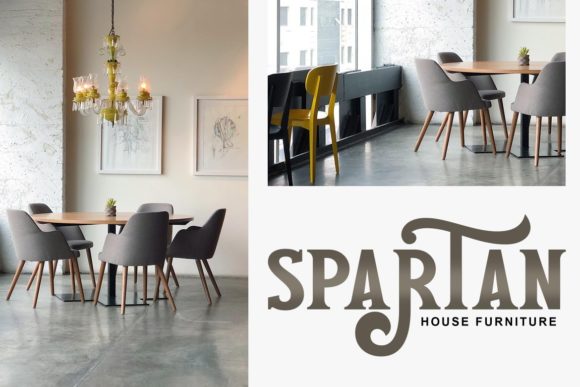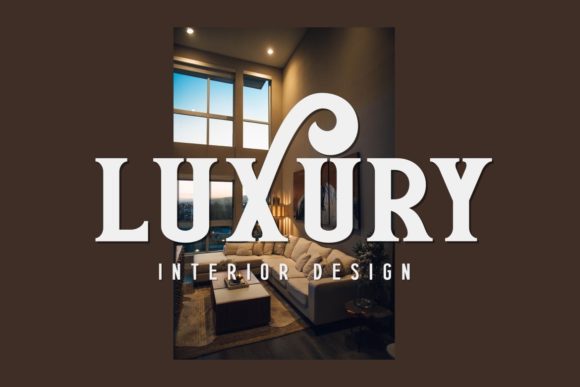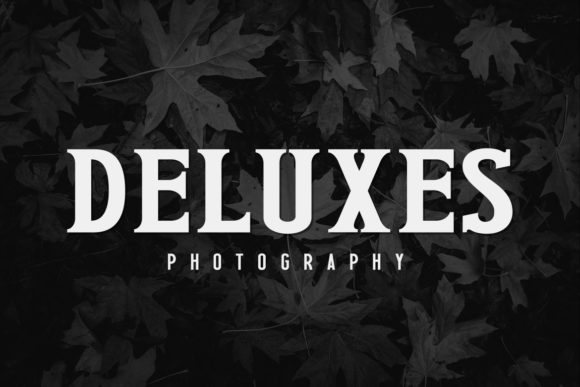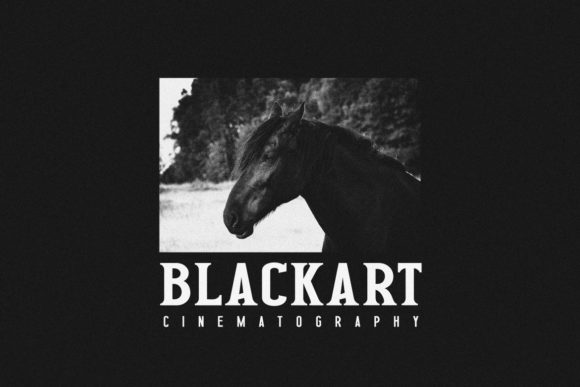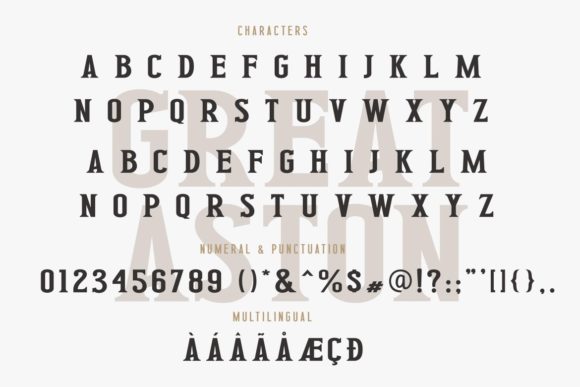
Introducing Great Aston Font: Elevate Your Designs with Elegance and Boldness
Are you on the hunt for a font that exudes sophistication, elegance, and boldness? Look no further than the Great Aston Font. This stunning serif font is perfect for designers and crafters seeking to add a touch of luxury to their projects. With its versatility and wide range of applications, Great Aston is sure to become a staple in your font collection.
What Makes Great Aston Font Stand Out?
Great Aston Font is an elegant and bold serif font that can easily be matched to an incredibly large set of projects. Whether you’re working on logos, packaging, advertisements, magazines, or any other design endeavor, this font is sure to make a statement. Its classic serif design lends an air of sophistication, while its boldness ensures that your message is conveyed with confidence.
One of the standout features of Great Aston Font is its PUA (Private Use Area) encoding. This means that you can access all of the glyphs and swashes with ease, giving you unparalleled creative control over your designs. With PUA encoding, you can effortlessly navigate the font’s extensive character set, including alternative letters, ligatures, and decorative elements.
The versatility of Great Aston Font is one of its most compelling attributes. This font can be used in a wide range of design applications, including:
- Logos: Create a lasting impression with a bold, elegant logo that showcases your brand’s personality.
- Packaging: Elevate your product packaging with a sophisticated font that communicates luxury and quality.
- Advertisements: Grab attention and convey your message with confidence using Great Aston’s bold, eye-catching design.
- Magazines: Add a touch of elegance to your magazine layouts with a font that’s perfect for headlines, subheadings, and body text.
Why Choose Great Aston Font?
With so many fonts on the market, why choose Great Aston? Here are just a few reasons why this font stands out:
- Elegance: Great Aston Font boasts a sophisticated, elegant design that’s perfect for luxury brands and high-end designs.
- Boldness: Make a statement with a font that’s bold, confident, and attention-grabbing.
- Versatility: Use Great Aston Font in a wide range of design applications, from logos and packaging to advertisements and magazines.
- PUA Encoding: Enjoy easy access to all glyphs and swashes, giving you creative control over your designs.
Tips for Using Great Aston Font
To get the most out of Great Aston Font, here are a few tips to keep in mind:
- Experiment with font sizes: Great Aston Font looks stunning in large headlines, but it’s also effective in smaller body text.
- Play with glyphs and swashes: Take advantage of the font’s PUA encoding to add decorative elements and unique touches to your designs.
- Pair with complementary fonts: Combine Great Aston Font with other fonts to create visually appealing contrast and hierarchy.
Great Aston Font is an exceptional addition to any designer’s font collection. Its elegant, bold serif design, combined with PUA encoding, makes it an incredibly versatile and valuable resource. Whether you’re working on a luxury brand, high-end packaging, or a sophisticated advertisement, Great Aston Font is sure to elevate your designs and leave a lasting impression.